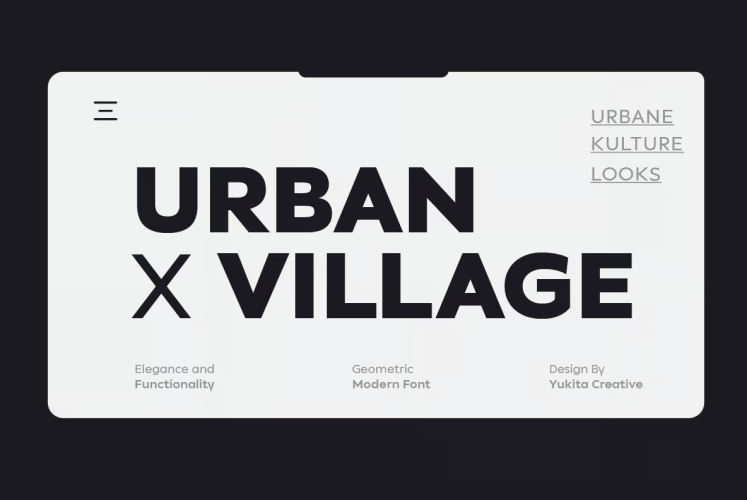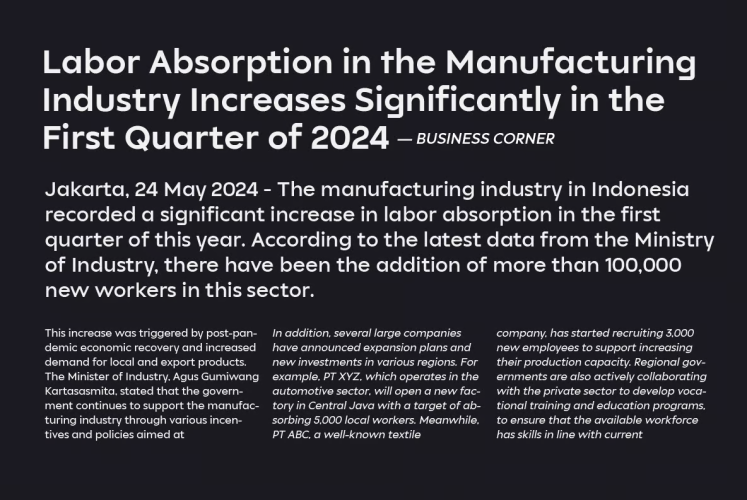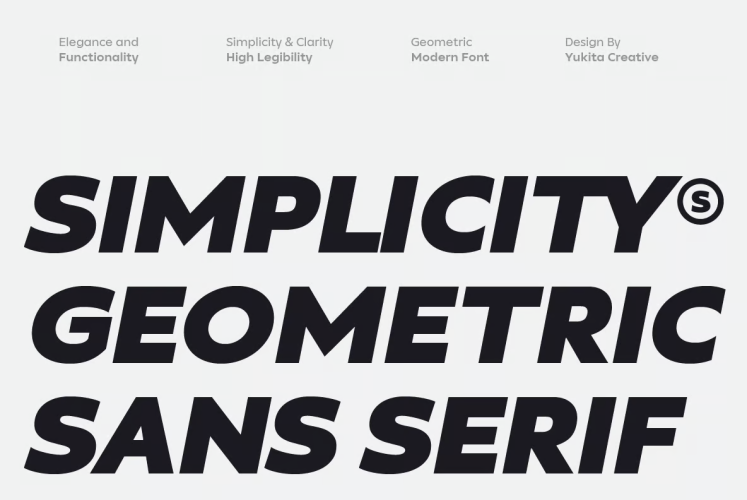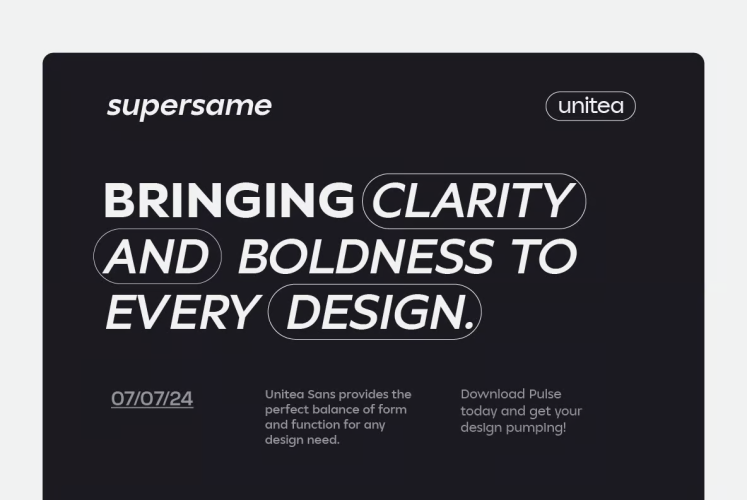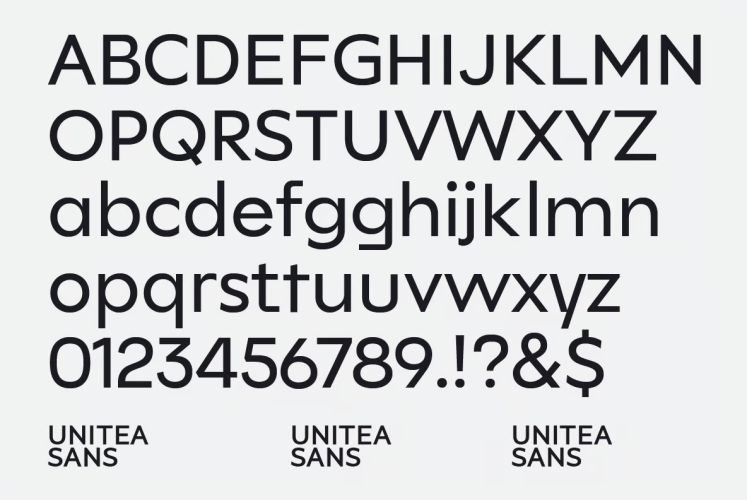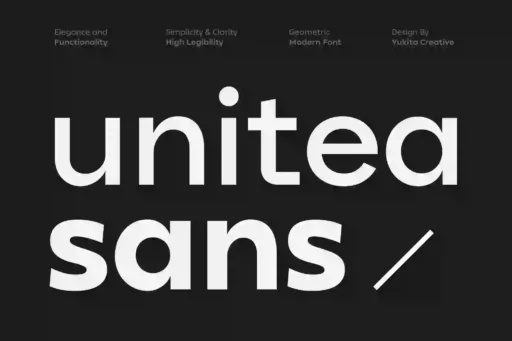
Unitea Font
Unitea Sans is a modern geometric sans serif font. It offers six weights from Regular to Black, plus italics. It’s easy to read and works for any design. Features Geomet…
Unitea Sans is a modern geometric sans serif font. It offers six weights from Regular to Black, plus italics. It’s easy to read and works for any design.
Features
Geometric Precision: Clean, modern shapes for a sleek look.
High Legibility: Optimized for clear and easy reading.
Six Weights: From Regular to Black for versatile design options.
talic Slants: Matching italics for each weight, adding variety.
Wide Applicability: Perfect for branding, editorial, marketing, and Digital Design.
Perfect For
Digital Design: Enhances readability and style for digital projects.
Print Media: Ideal for books, magazines, and brochures.
Branding: Professional look for logos and corporate materials.
Marketing Materials: Bold and clear for posters and flyers.
Where Unitea Font works best
Unitea Font stays legible at small sizes, which makes it a strong choice for navigation, buttons and dashboards in web design and app interfaces.
Clean sans serifs like Unitea Font are the default language of SaaS, fintech and product branding.
What is Unitea Font good for?
Unitea Font is a Sans Serif Fonts typeface tagged Bold, Clean, Geometric, Modern. It works well for headlines, logos, posters, social media graphics and branding projects that need a distinctive sans serif fonts look.